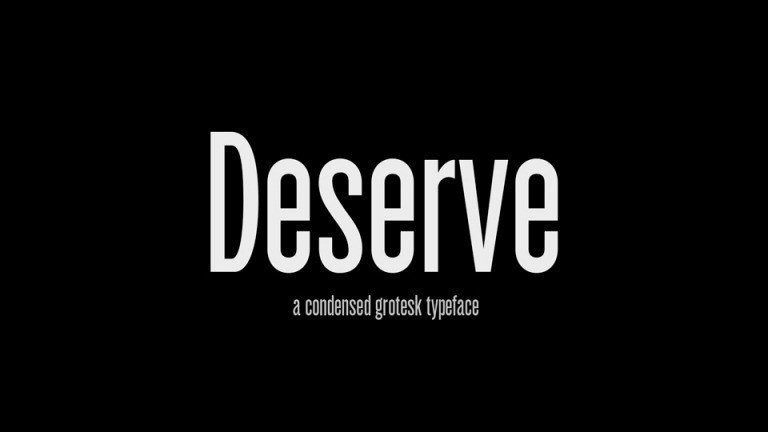
Deserve Sans Serif Font
Deserve Sans Serif Font was inspired by the swiss typography but with some details that give it personality and a technological character. Deserve font combines the forms of mid-century grotesks with rigid angles, it was design to be versatile and legible making it perfect for branding, poster, editorial etc.